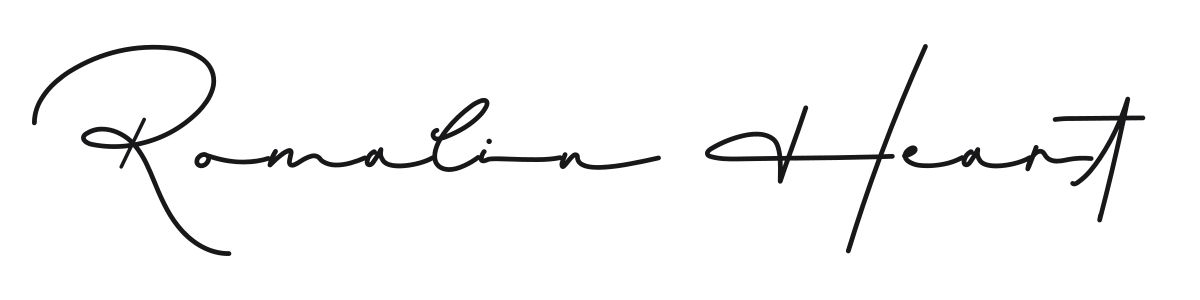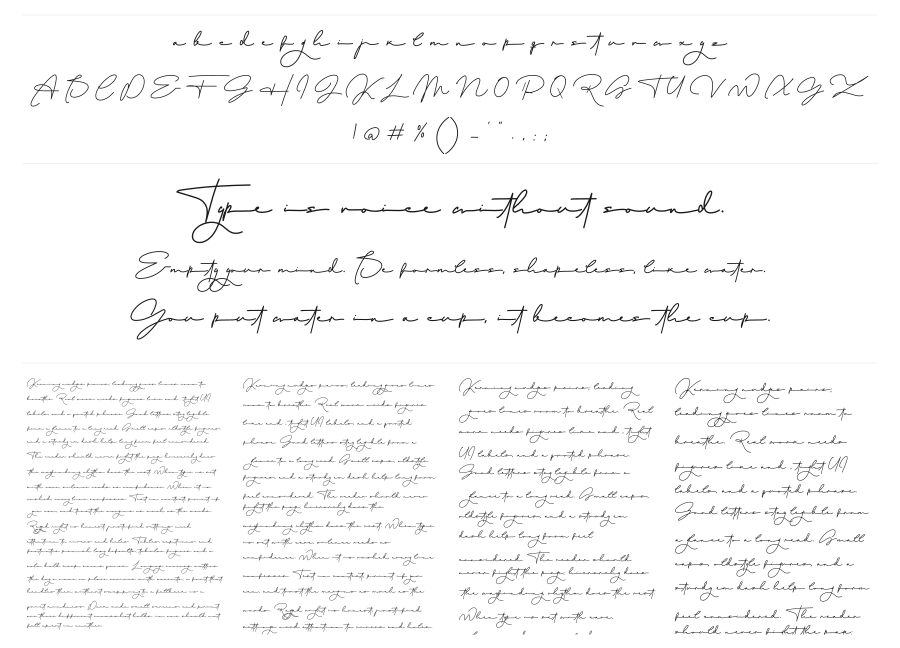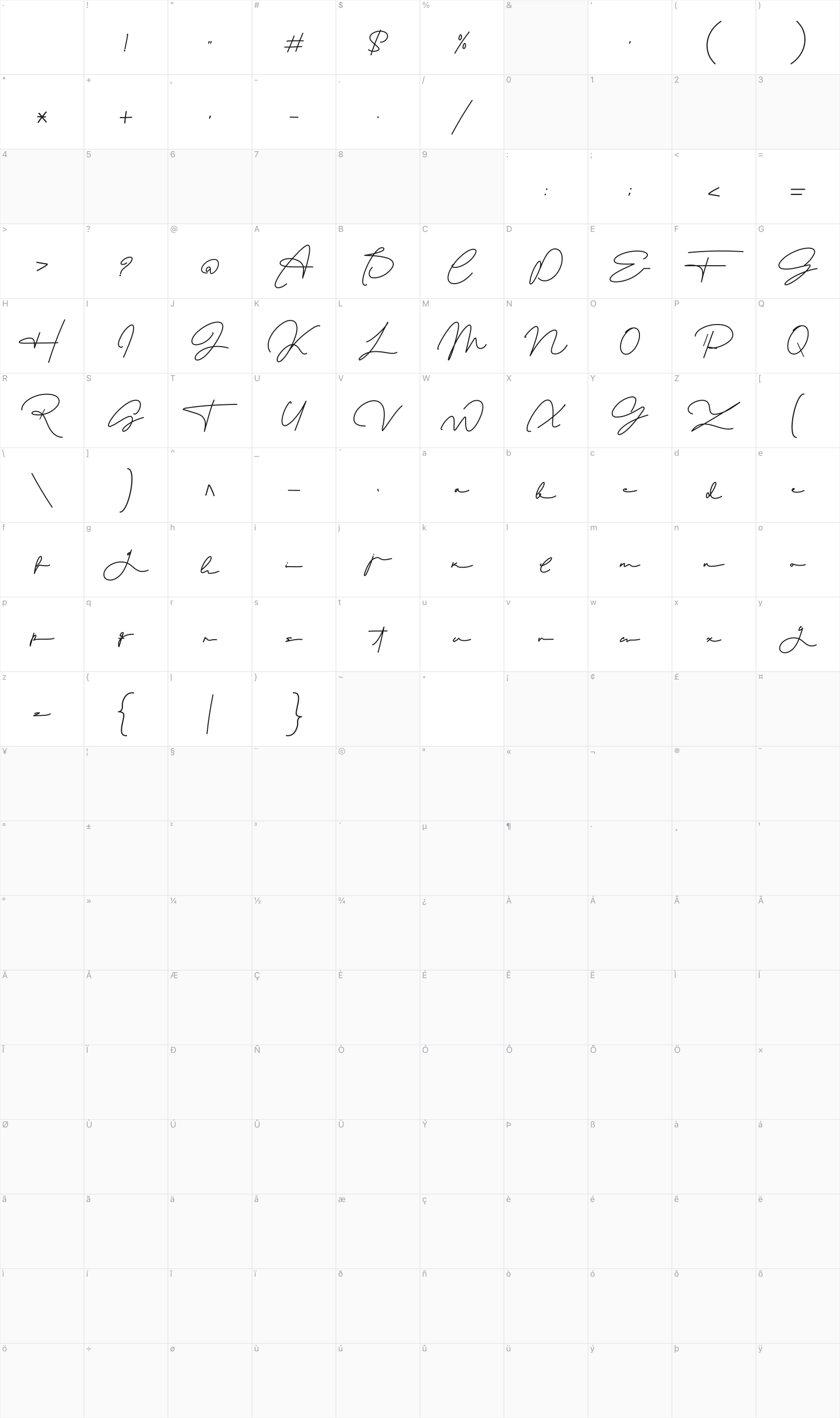
Romalin Heart
Romalin Heart is a flowing thin-weight cursive script that moves across the page like a confident handwritten signature. Long looping connectors and dramatic baseline descenders give it a romantic, almost cinematic personality. It suits wedding stationery, luxury branding, and any context where graceful handwriting is the message.